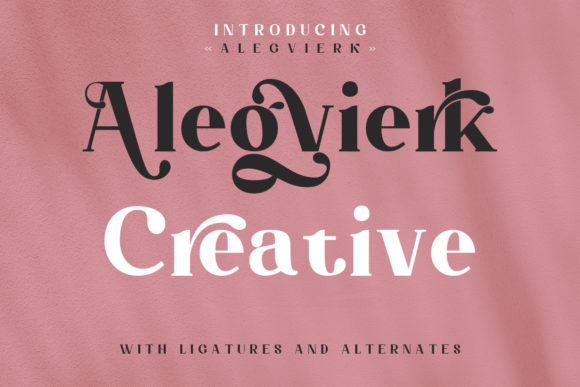
The Ultimate Serif Font for Crafty Designers: Alegvierk
An Honest Review of Alegvierk
- 💯 **Elegant and Detailed Design**: Alegvierk’s intricate details make it perfect for high-end branding, crafting, and design projects.
- ✅ **Versatile**: This font can elevate a wide range of projects, from cards and labels to full-scale branding campaigns.
- 🎨 **OpenType Features**: Alegvierk comes with a range of OpenType features, including stylistic alternates and glyphs, giving you plenty of creative freedom.
While Alegvierk is an amazing font, there are a few things to keep in mind: 🤔
- ⚠️ **Legibility at Small Sizes**: Like many detailed serif fonts, Alegvierk can get a bit tricky to read at very small sizes. It’s best used at larger sizes where its details can shine.
- ⚠️ **Pairing**: Due to its strong personality, Alegvierk can be a bit of a handful to pair with other fonts. You’ll want to choose complementary fonts carefully.
The Backstory of Alegvierk
Alegvierk was designed with the modern crafter and designer in mind. Its creator aimed to produce a font that was not only beautiful but also highly versatile. Inspired by classic serif designs with a modern twist, Alegvierk brings a fresh yet timeless feel to any project.
| Font Name | Alegvierk Font |
| Author | Luhop Creative |
| Is Alegvierk suitable for body text? | While Alegvierk is stunning, it’s best used in larger sizes due to its detailed design. For body text, consider pairing it with a simpler font for readability. |
| Does Alegvierk support OpenType features? | Yes, Alegvierk comes with a range of OpenType features, including stylistic alternates and glyphs, which can be accessed in compatible software. |
| Is Alegvierk easy to read? | Alegvierk shines at larger sizes. For smaller sizes, readability might be a challenge due to its intricate details. |